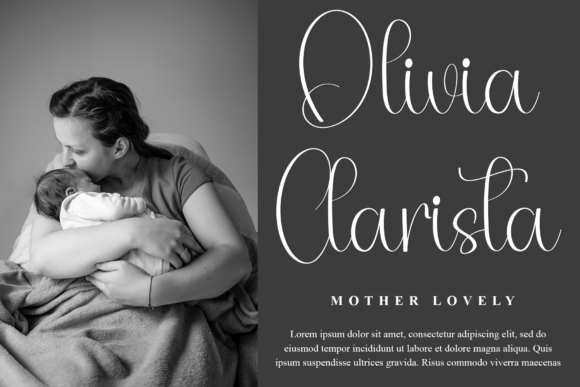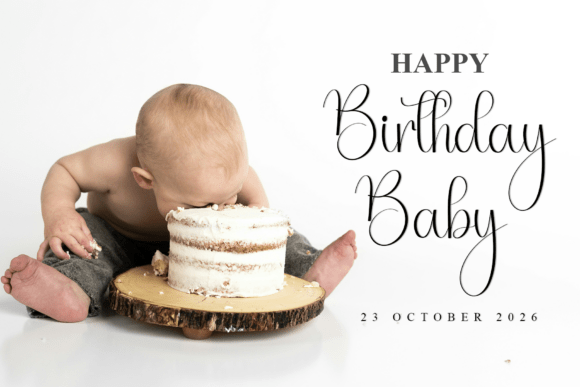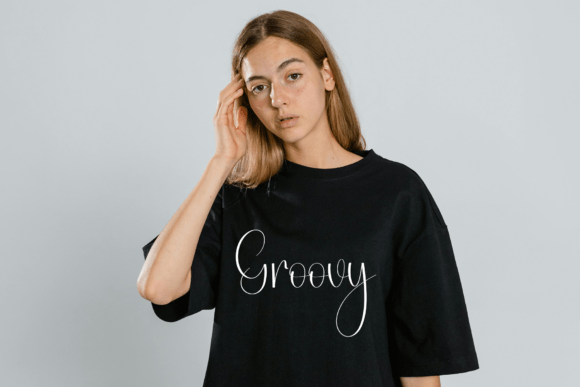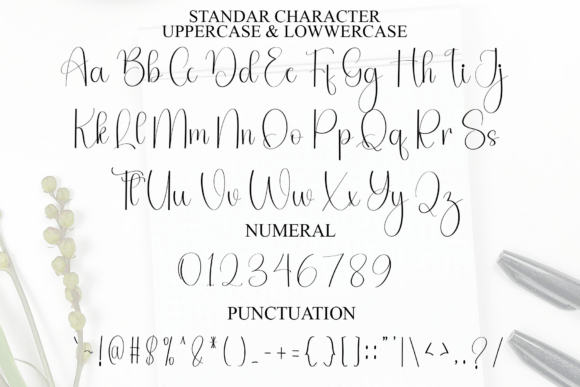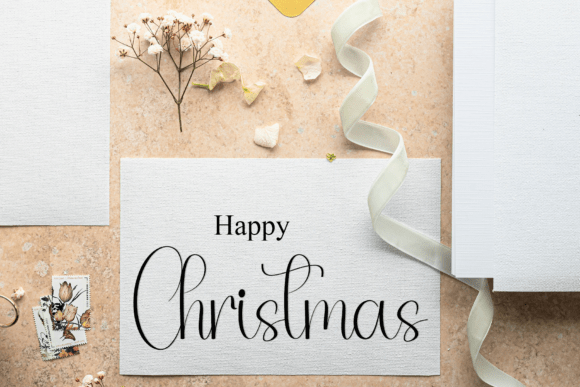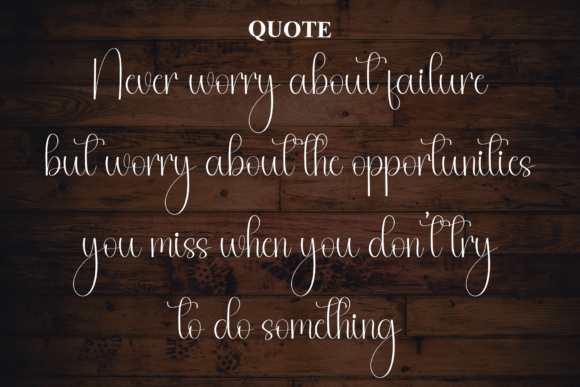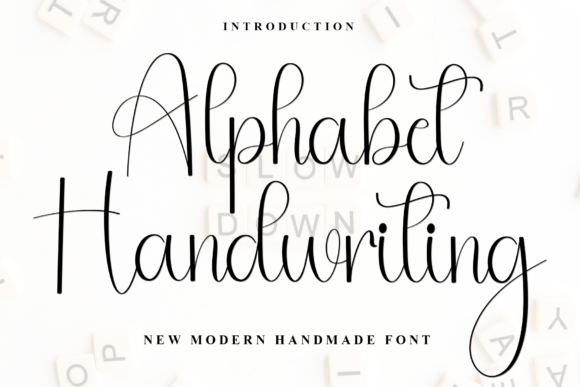
Introducing the Elegance of Alphabet Handwriting Font
In the world of typography, a font can make all the difference in the aesthetic and appeal of a design project. For those seeking a touch of elegance, sophistication, and uniqueness, the Alphabet Handwriting Font stands out as an exceptional choice. Designed with a soft, unique touch, this beautiful font is not just a style but an experience that brings a distinctive charm to any creative work.
The Distinctive Character of Alphabet Handwriting Font
What sets Alphabet Handwriting Font apart is its distinctive strokes that breathe life into any text, making it more than just words on a page. Its special character gives designers and crafters the ability to infuse their projects with a personal touch, making each piece meaningful and memorable. Whether it’s for a branding project, a craft, or any creative endeavor, this font’s versatility shines through, offering endless possibilities for artistic expression.
A World of Creativity with Various Characters
One of the key features of Alphabet Handwriting Font is its range of characters. This variety allows designers to experiment with different styles and combinations, ensuring that their projects stand out. From invitations and greeting cards to logos and website content, the font’s adaptability makes it perfect for a myriad of design projects. Its natural flow and soft edges evoke a sense of warmth and approachability, making it an excellent choice for projects aimed at connecting with a broad audience.
Seamless Compatibility for Diverse Applications
Understanding the needs of modern designers and crafters, Alphabet Handwriting Font is designed to be compatible with a wide range of applications. Whether you’re working on a Windows platform or prefer open-source solutions, this font integrates smoothly, ensuring that your creative process is hassle-free. This compatibility extends to various software used in graphic design, digital art, and crafting, making it a versatile tool in your typography arsenal.
Ideal for a Wide Range of Products and Projects
The natural style of Alphabet Handwriting Font lends itself beautifully to a variety of products and projects. For crafters, it’s perfect for handmade cards, DIY projects, and personalized gifts. Designers can use it to add a personal touch to branding materials, website content, and marketing collateral. The font’s broad appeal makes it suitable for projects targeting diverse audiences across different artistic and creative fields.
Elevate Your Designs with Alphabet Handwriting Font
Using Alphabet Handwriting Font in your projects is more than just a stylistic choice; it’s a way to elevate your designs and make them more engaging. The font’s unique touch and natural flow have the power to transform ordinary text into something visually appealing and captivating. Whether you’re aiming to evoke a sense of elegance, warmth, or creativity, this font provides the perfect foundation for your designs.
Tips for Maximizing the Potential of Alphabet Handwriting Font
- Experiment with Sizes and Colors: Play around with different sizes and color schemes to see how they impact the overall look and feel of your project.
- Combine with Other Fonts: Don’t be afraid to pair Alphabet Handwriting Font with other fonts for a unique contrast that adds depth to your design.
- Use in Digital and Print Media: Its versatility makes it suitable for both digital platforms and print media, offering a consistent aesthetic across different mediums.
Alphabet Handwriting Font is more than just a typography style; it’s a creative tool that offers designers and crafters a unique way to express themselves. Its distinctive strokes, versatility, and compatibility with various applications make it an invaluable resource for anyone looking to add a personal touch to their projects. With Alphabet Handwriting Font, you’re not just choosing a font; you’re embracing a style that can elevate your designs and connect with audiences on a deeper level.